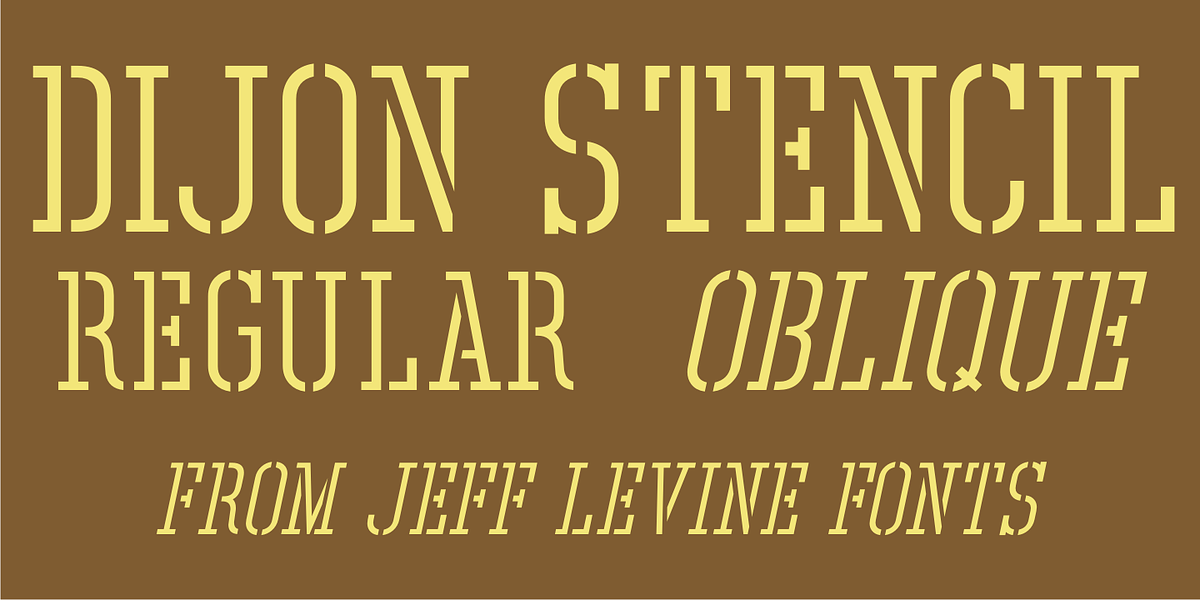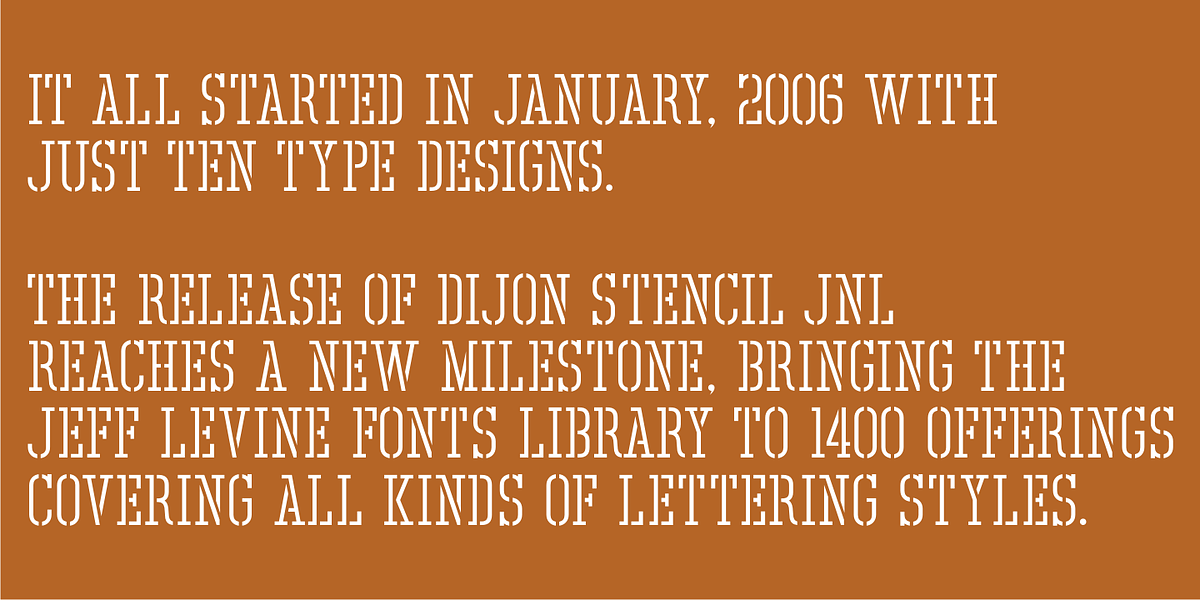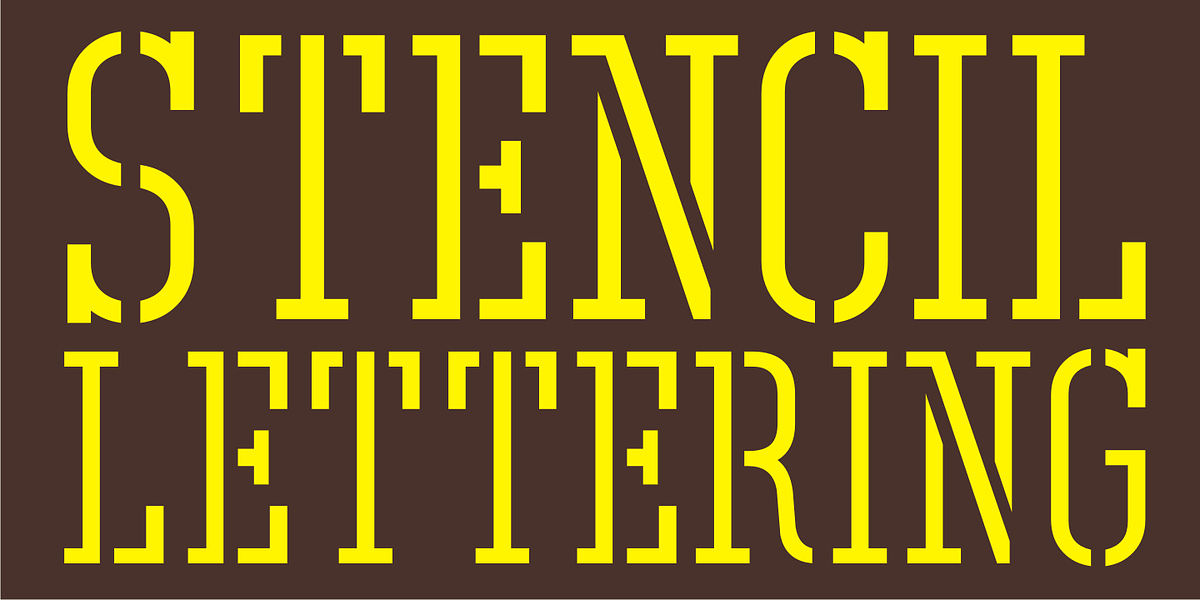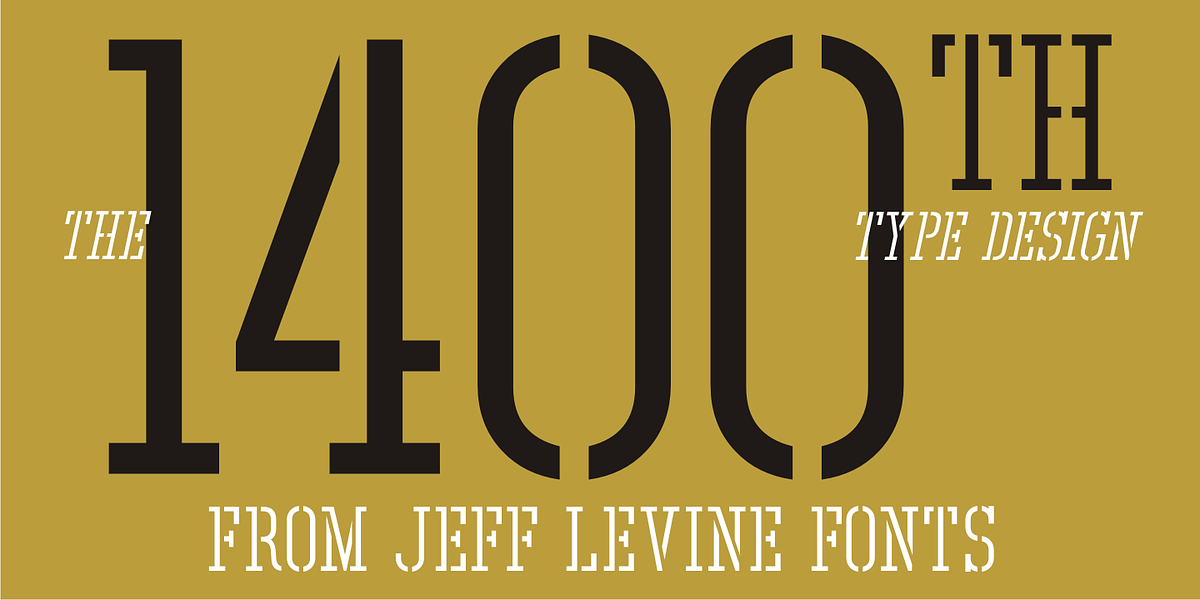
Dijon Stencil JNL
A vintage French metal marking stencil for Comandon and Company was the inspiration for the 1400th type design from Jeff Levine Fonts.
Dijon Stencil JNL is a condensed serif design with thin stroke weights and is available in both regular and oblique versions.